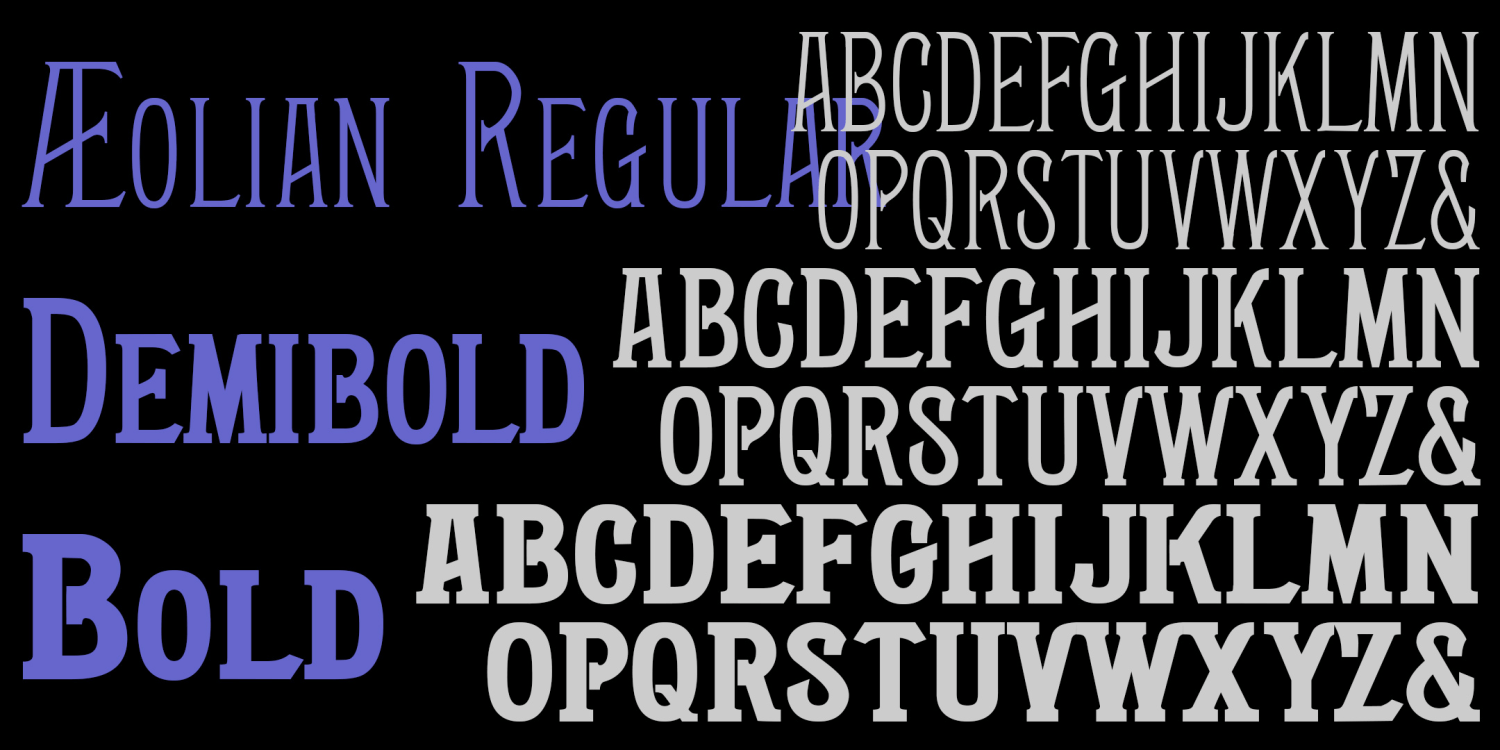
Aeolian
Aeolian is a narrow, elegant font that was inspired by the lettering on a pipe organ manufactured by the Aeolian Company. My friend Nelson got me started with scans of the various stop labels found on the Longwood Gardens Aeolian organ which he is working to restore. I invented missing letters and numbers, then created two additional weights, Demi and Bold.